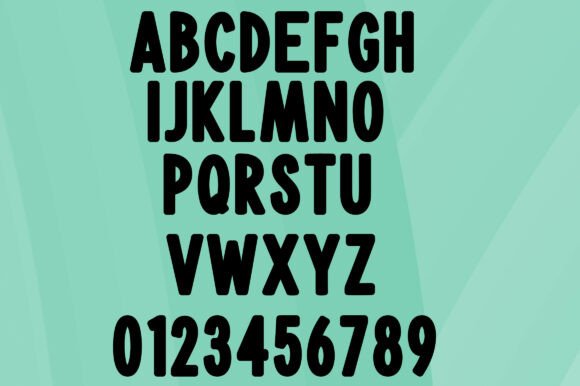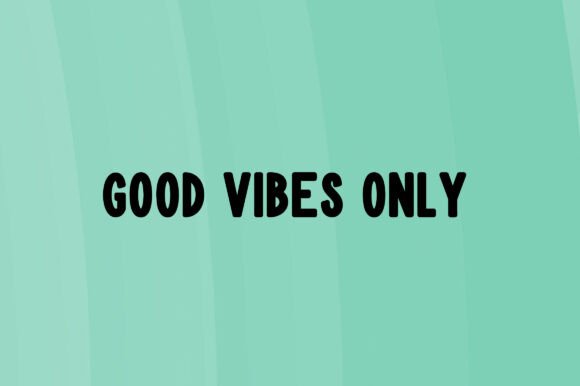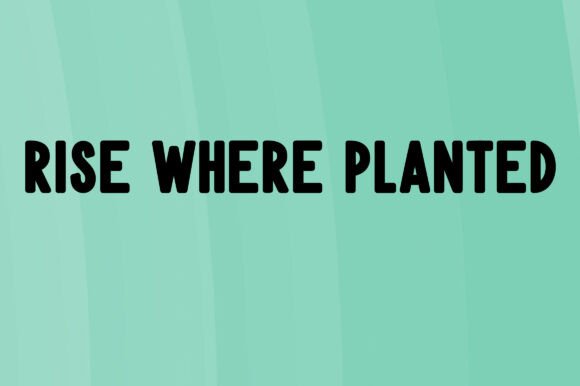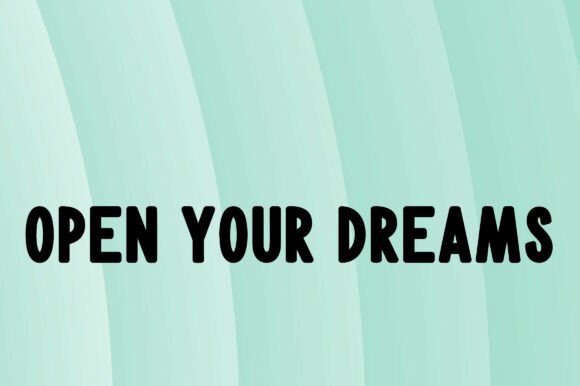
Introduction to Kylie Font
Do you ever find yourself staring at a blank design project, searching for that perfect font to bring your vision to life? As a designer, I know how frustrating it can be to sift through countless options until you find one that truly captures the essence of your creative project. That’s why I’m excited to introduce you to the Kylie Font, a stunning display font that’s about to become your new go-to design resource.
The Kylie Font is an elegant and minimalist typeface that exudes a cool, stylish personality, making it the perfect addition to any design. With its high-quality design and transparent background, this versatile font is ideal for a wide range of creative projects, from branding and logos to posters, packaging, and social media graphics.
Key Features of Kylie Font
- High-quality design: This font features a clean and modern design, suitable for various creative projects, including logos, headings, and body text.
- Unique characteristics: Kylie Font features a unique blend of modern and elegant elements, setting it apart from other sans-serif fonts.
- OpenType features: The font includes OpenType features, such as ligatures and stylistic sets, which can be accessed using design software that supports OpenType.
Honest Review: Kylie Font
I recently had the chance to work with the Kylie Font and I’m excited to share my honest review. As a designer, I’m always on the lookout for high-quality design resources that can elevate my creative projects. The Kylie Font definitely delivers.
Here are some things that work well: ✨
- High-quality design: The Kylie Font is beautifully crafted, with clean lines and a modern feel.
However, I did encounter some limitations: ⚠️
- Limited font styles: While the Kylie Font is a great addition to any designer’s toolkit, it’s limited to a single style.
- No bold or italic options: If you need a bold or italic version of the font, you’re out of luck.
Overall, I’m really impressed with the Kylie Font. It’s a great resource for designers who want a high-quality, modern font for their creative projects. While it has some limitations, I think it’s definitely worth checking out.
Tips for Getting the Most Out of Kylie Font
Use the Kylie Font in combination with other design elements, such as images and graphics, to create visually appealing designs. Experiment with different font sizes, colors, and styles to add depth and interest to your designs.
The Kylie Font is ideal for use in various creative projects, including logo designs, social media graphics, and presentations. It is also suitable for use in web design, advertising, and marketing materials.